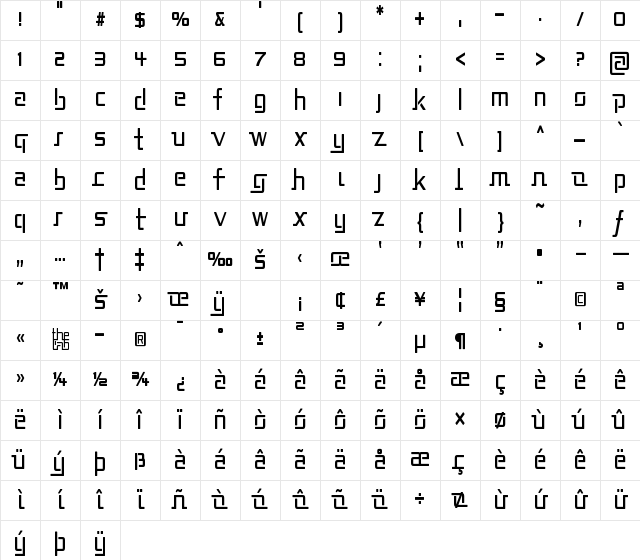
Republika II Cnd Regular
Designer: Apostrophe
Complete Republika II Cnd Regular glyph index. Displaying only characters natively supported by Republika II Cnd Regular font.
Design Context for Republika II Cnd
Republika II Cnd is a composed and adaptable typeface that performs quietly and consistently across a wide range of design contexts.